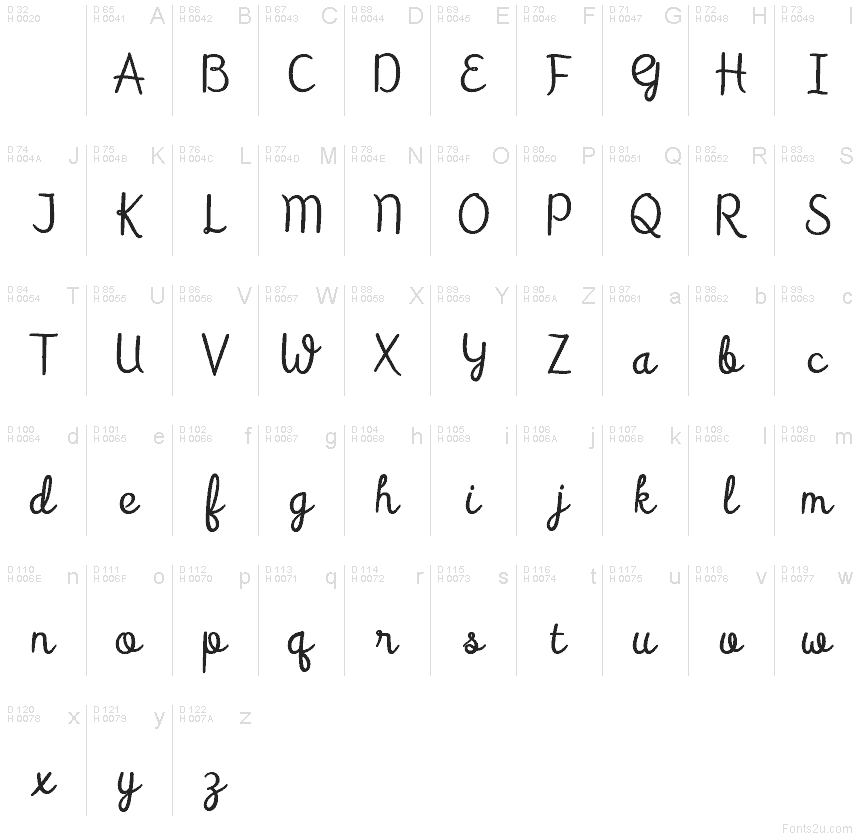
CS Hailey Regular Demo
CS Hailey font by Craft Supply Co. is a free monoline handwritten script font. It solves the classic script dilemma: warm personality without messy fuss. Smooth, inky strokes, rounded terminals, and a gentle slant create an easy rhythm, while open counters and a light bounce keep it airy and legible at small sizes. It feels friendly and polished—casual enough for notes, clean enough for branding.
Using CS Hailey, you can bring charm to wedding suites, boutique logos, product labels, social quotes, gift tags, bakery menus, and stationery sets. The consistent stroke weight keeps lines crisp in print and on screens, so headlines sing and captions stay readable. Try setting it large for names and pair with a simple geometric sans for body copy—this free font does the emotive work, the sans does the explaining.